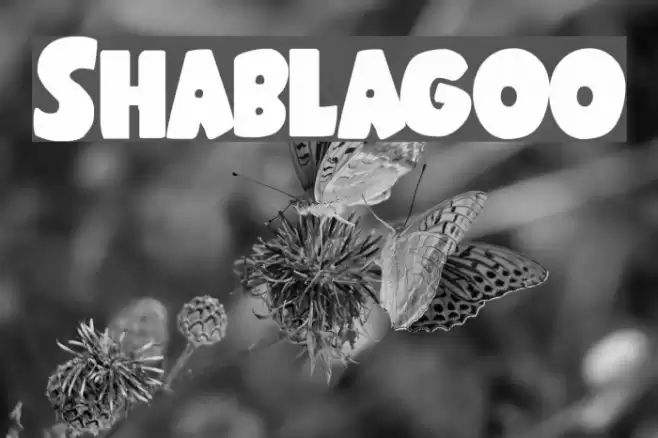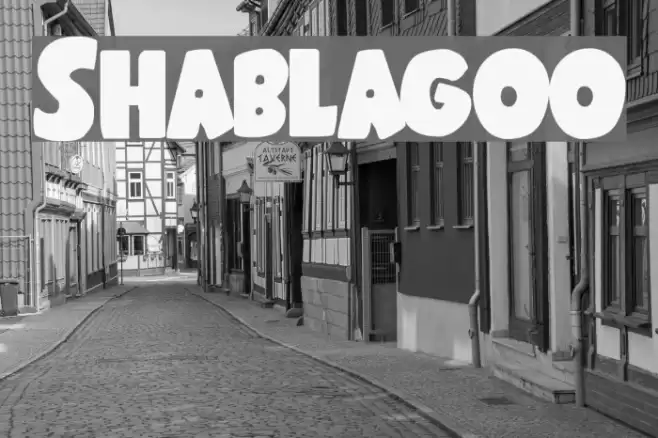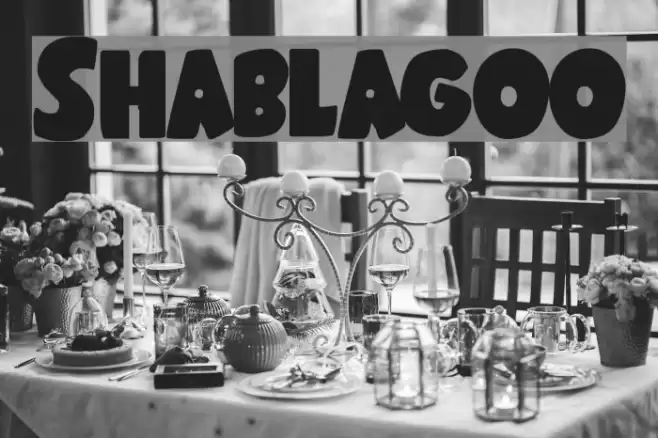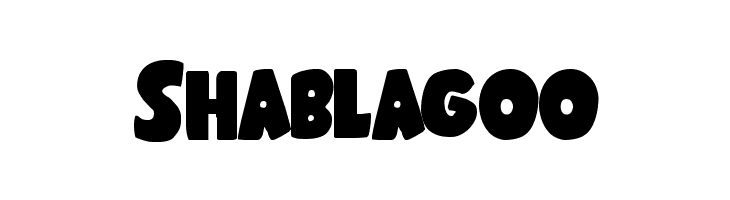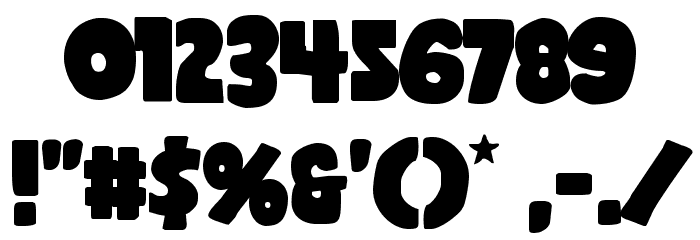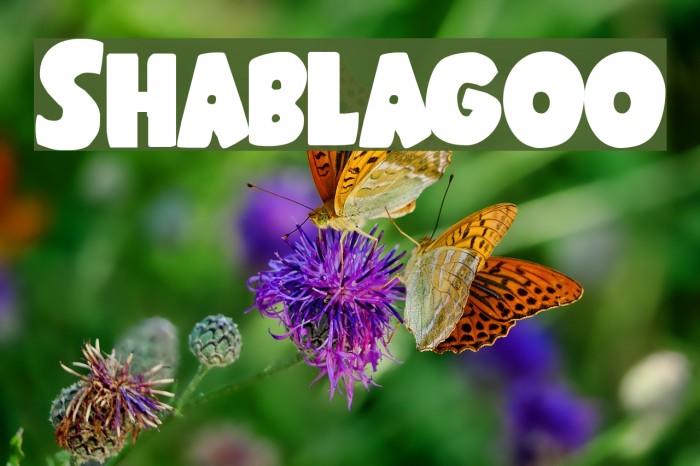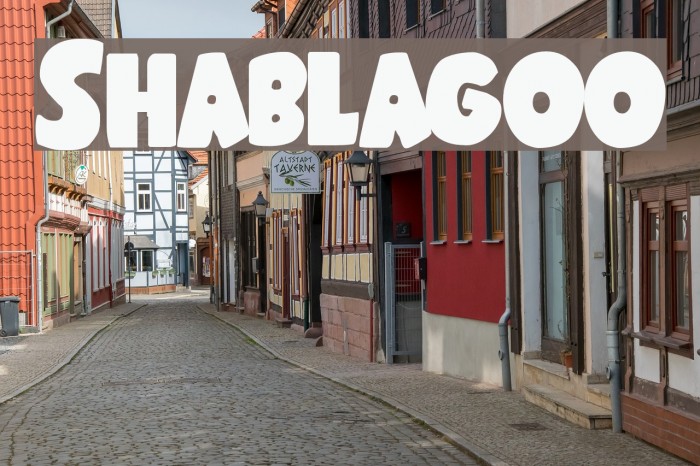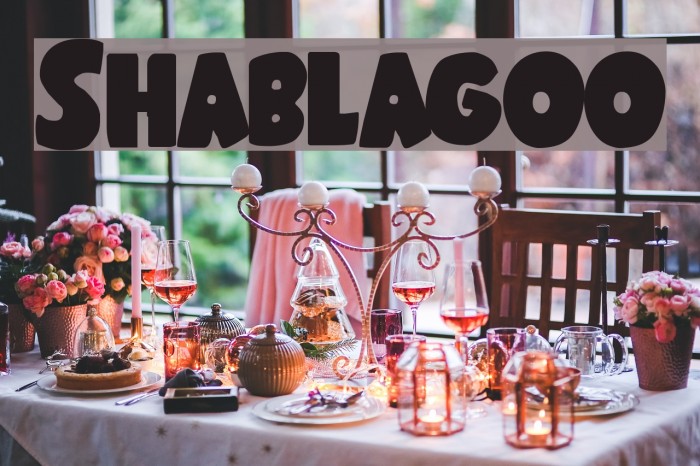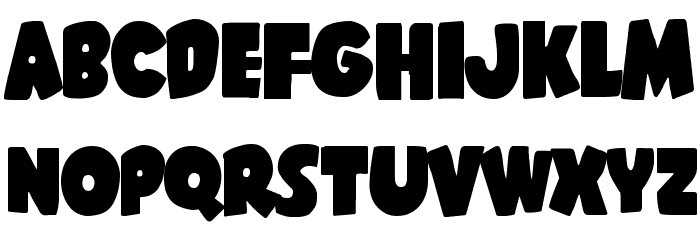
Shablagoo Font
Shablagoo Description
This font features bold, playful characters with a chunky and rounded appearance. The letters are uniformly thick, giving them a strong presence and making them highly legible from a distance. The style is reminiscent of retro or comic book fonts, with exaggerated curves and a whimsical flair. The numbers and special characters maintain the same boldness, ensuring consistency across all glyphs. This font's unique style makes it ideal for attention-grabbing headlines or playful branding. Its boldness and rounded edges convey a sense of fun and creativity, making it suitable for projects that aim to be both eye-catching and approachable.
A bold, playful font with chunky, rounded characters ideal for attention-grabbing designs from Cartoon fonts.
- Proposed Projects: Perfect for comic books, children's books, playful branding, posters, and eye-catching headlines.
- Overall Style: Playful, Retro